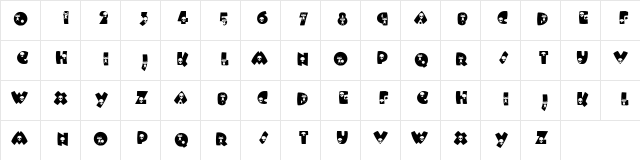
KR Alien Regular
Design Context for KR Alien Typeface
KR Alien is a composed and adaptable typeface that performs quietly and consistently across a wide range of design contexts.